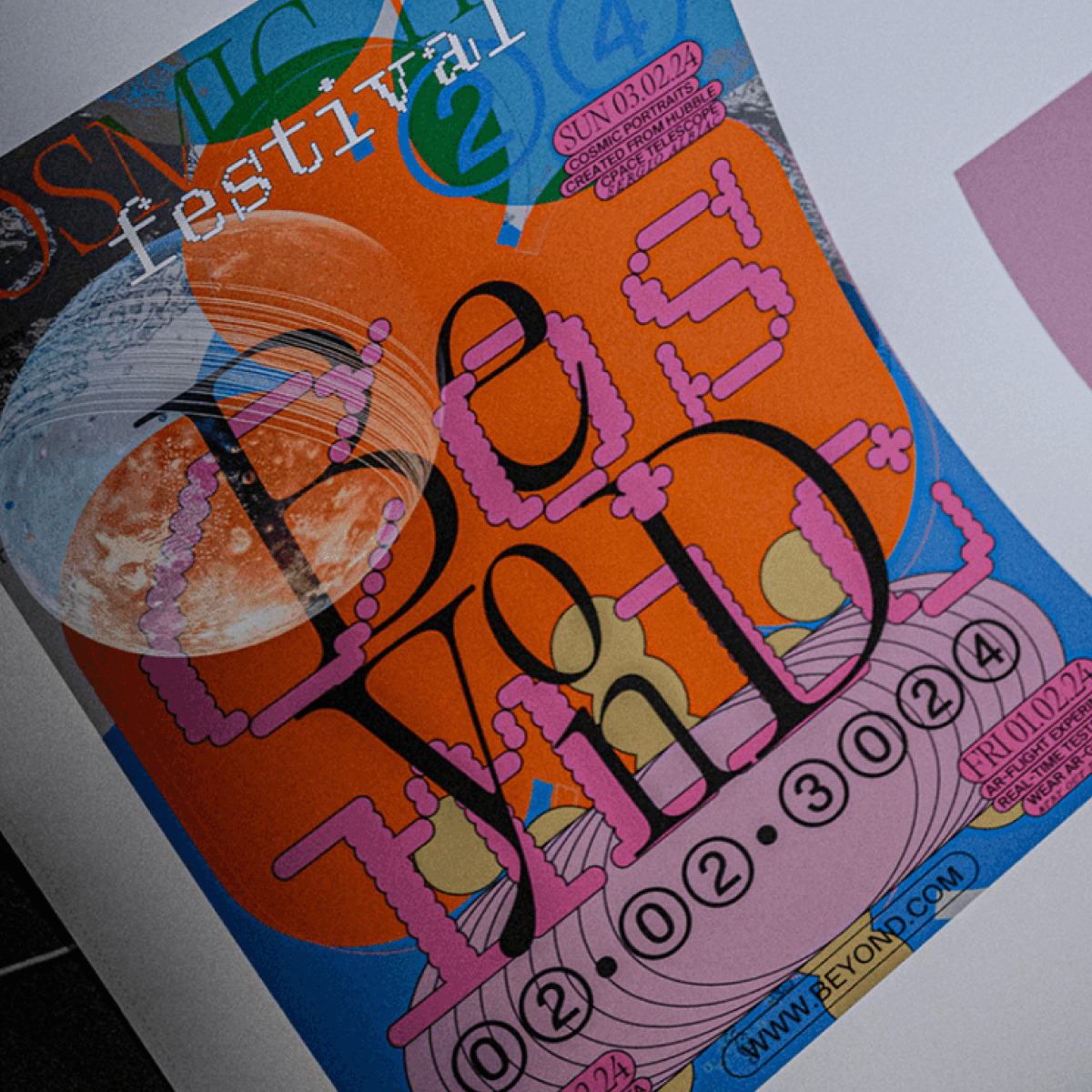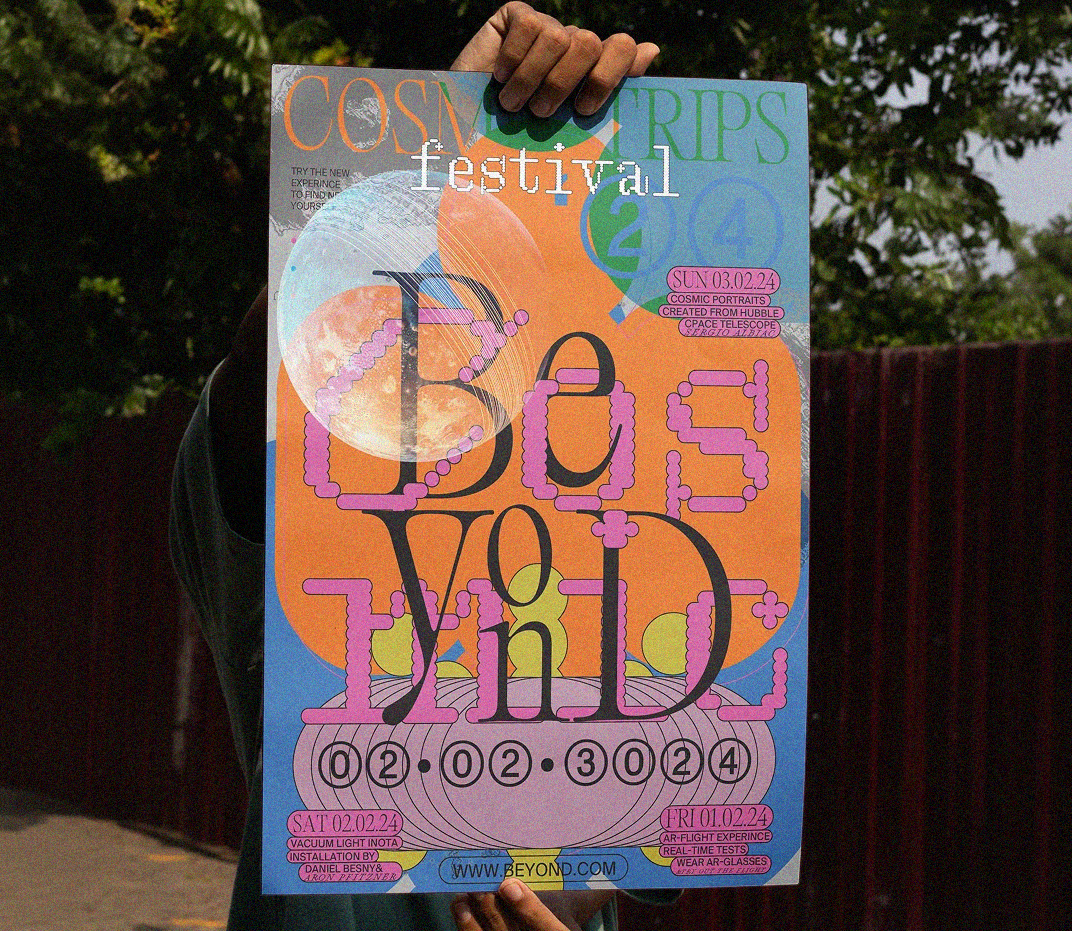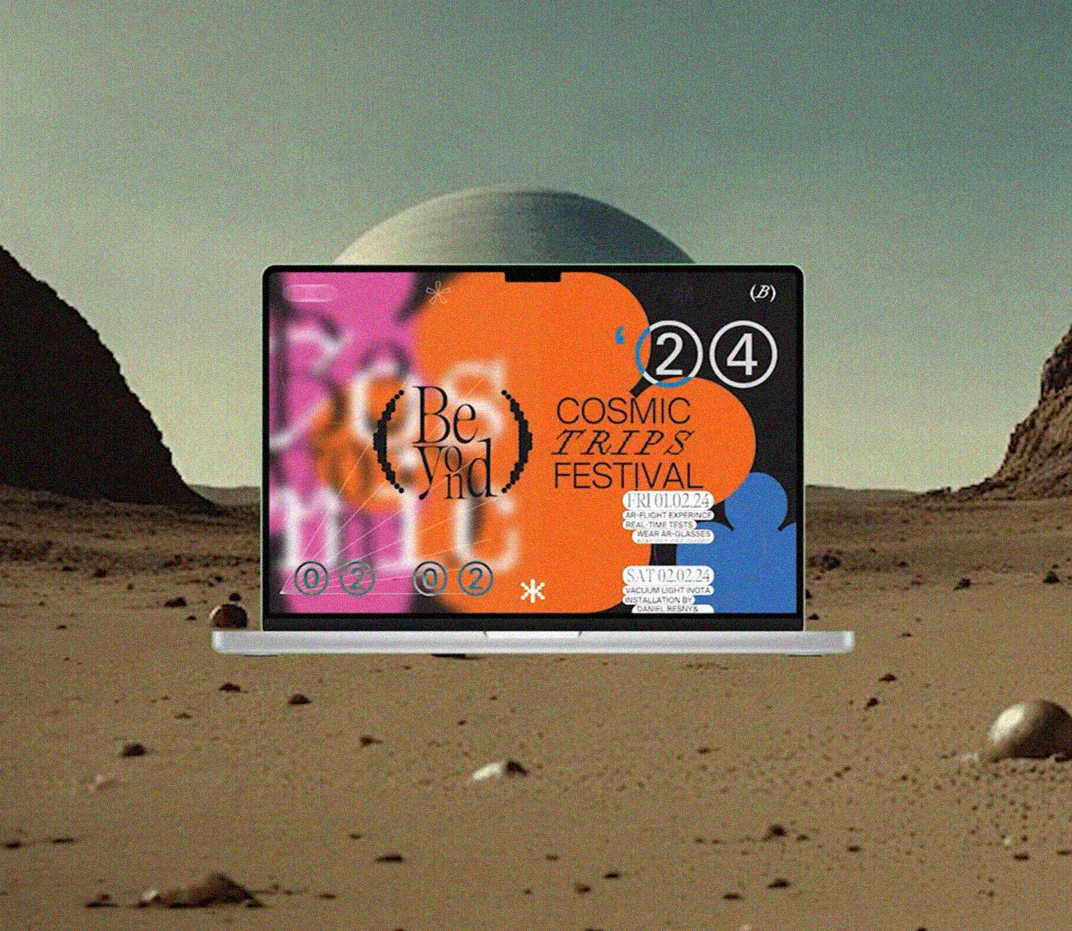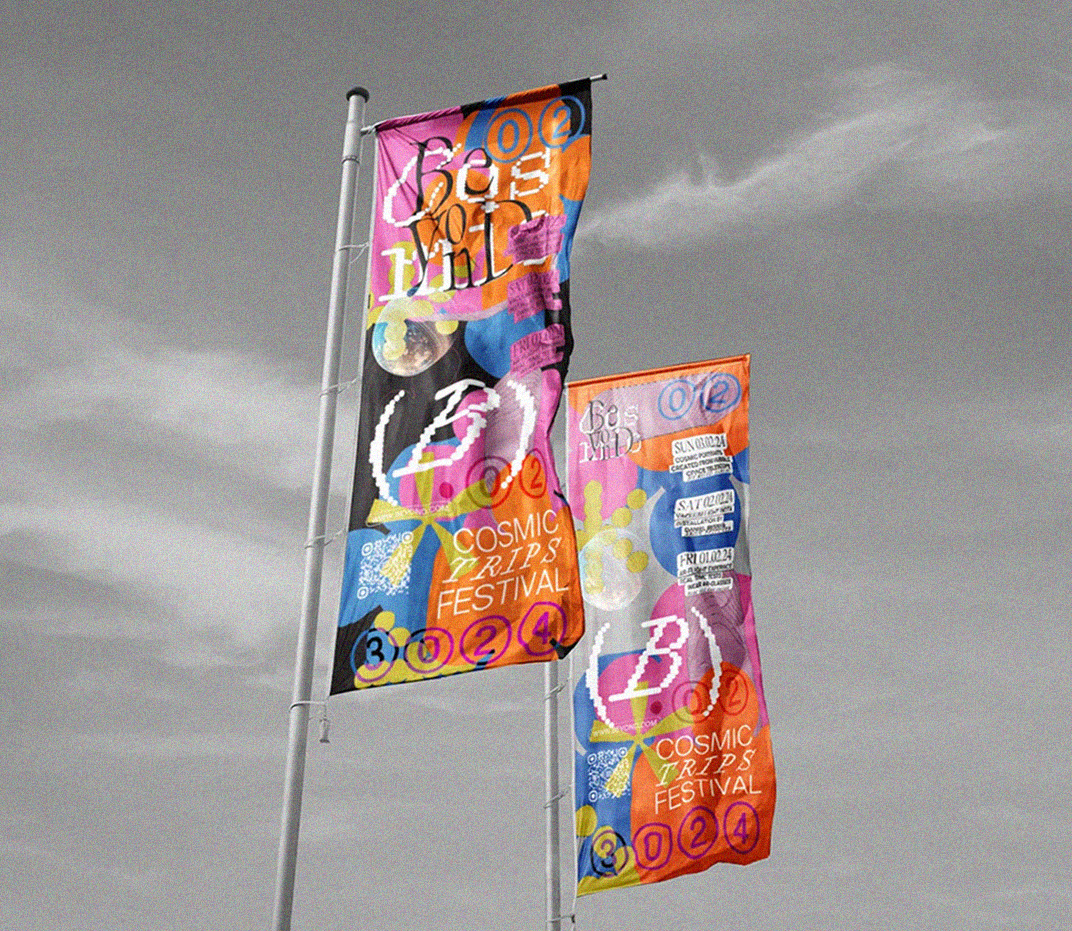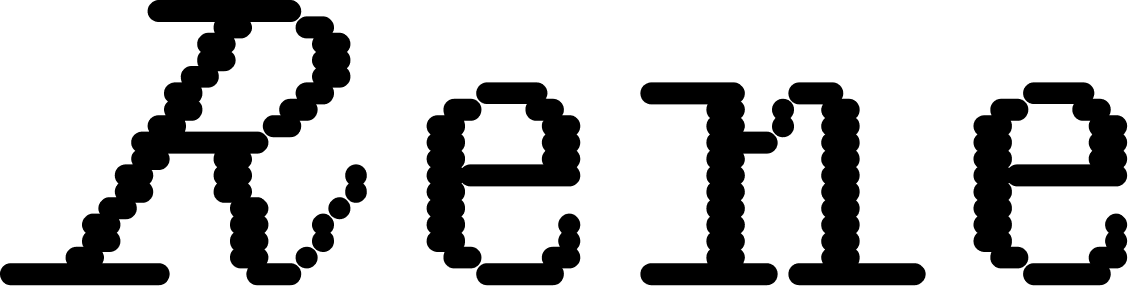
Rene in use: Beyond
A display serif for an event planned for 3024
Beyond is a cosmic trip festival to be held in 3024. This fictional event was made up by Anastasia Bushueva as part of her student project at the University of Technology Nuremberg. The festival identity uses Rene by Fedya Abroskin, Suisse Int’l by Swiss Typefaces, and Editorial New by Pangam Pangram.
Rene is a display typeface with flat serifs and excessive ink traps, built within a grid of rounded rectangles. An almost conventional skeleton coexists with a distinctive bit-mapped texture, and the typeface’s upright, static lowercase characters neighbour its wild italic uppercases.